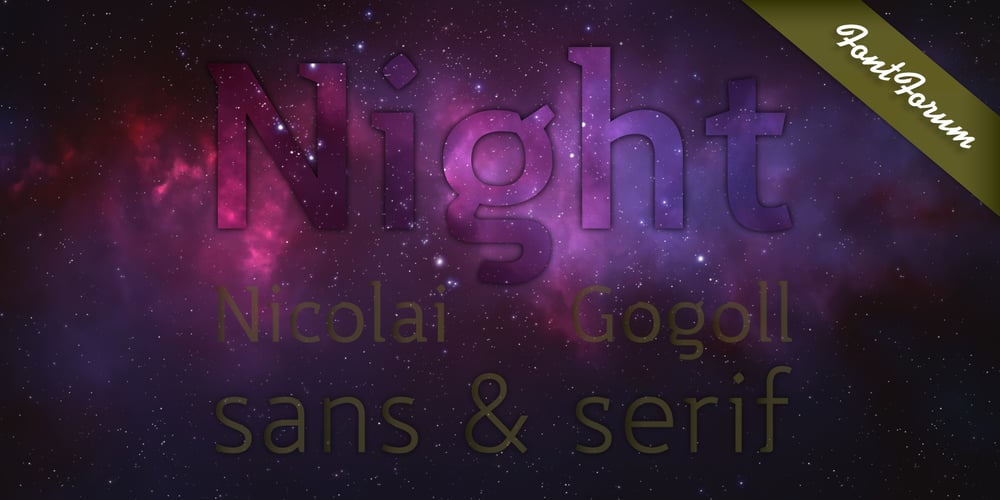
Nightsans Font Family was designed by Nicolai Gogoll and published by URW Type Foundry. Nightsans contains 7 styles and family package options. The family Night by Nicolai Gogoll includes 10 styles – five serifs and five sans. Both variants harmonize well with each other and each come in five weights, which allows for good use in CI. Combining the Serif and Sans also enables versatile and hierarchical design, which is great for interfaces and infomedia.